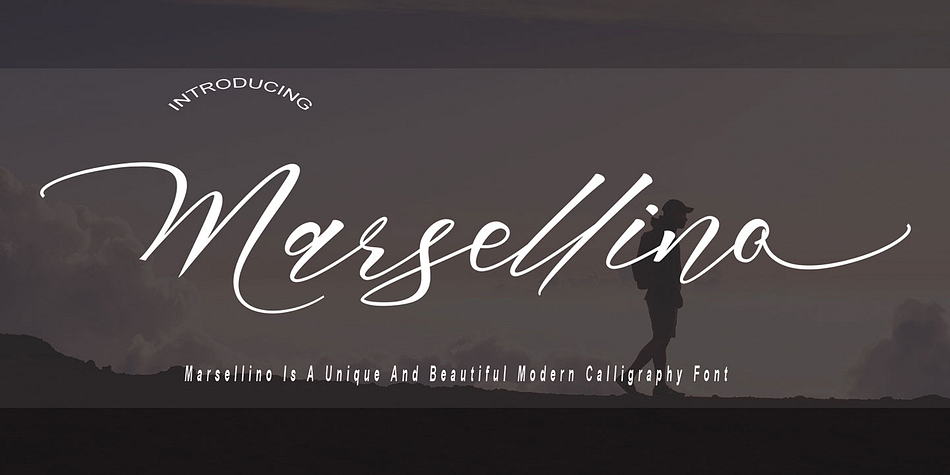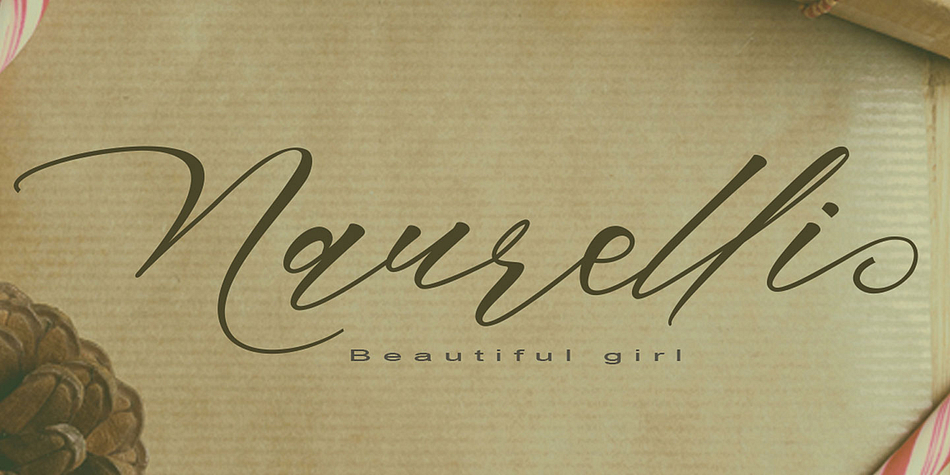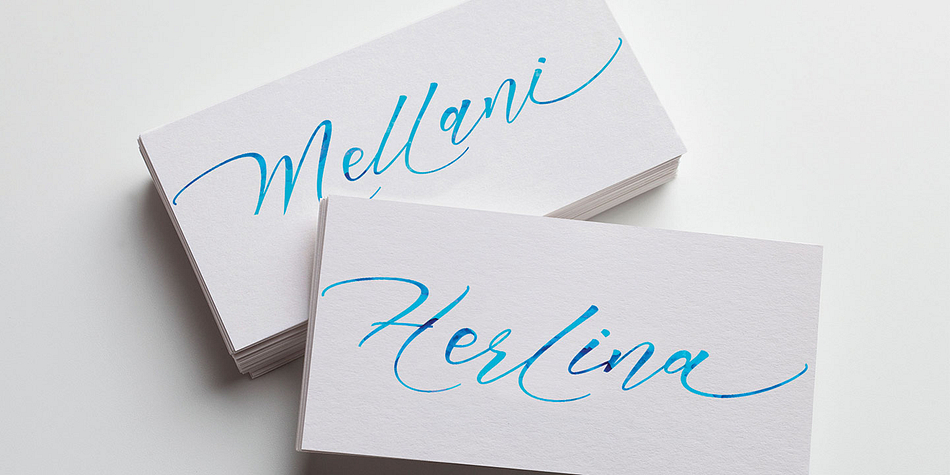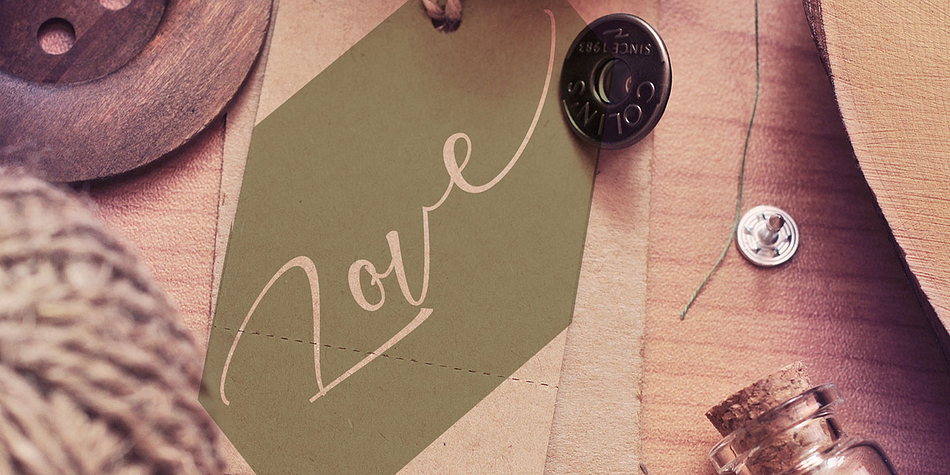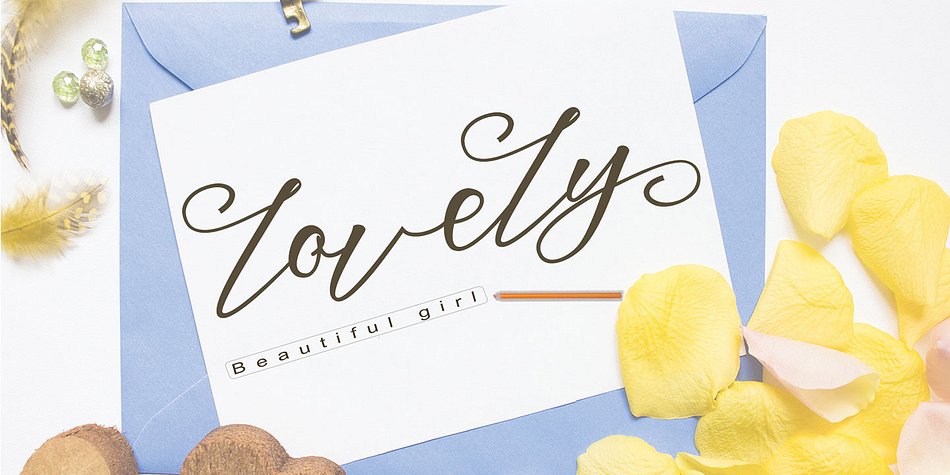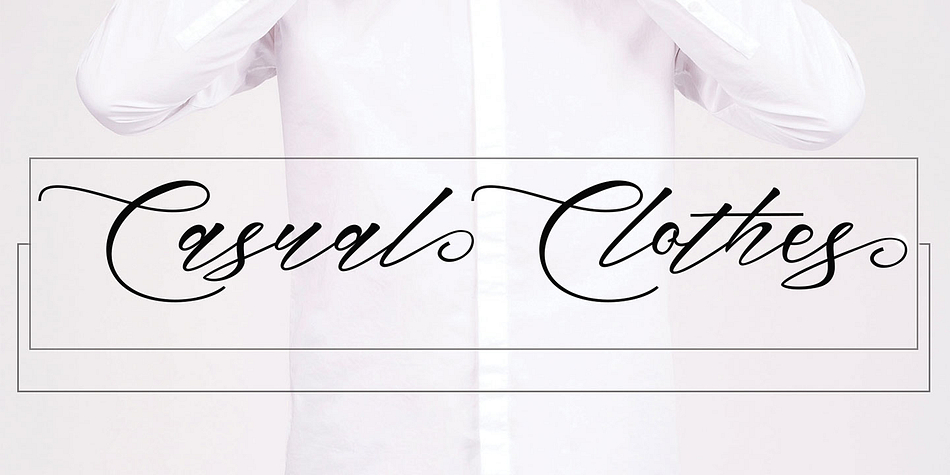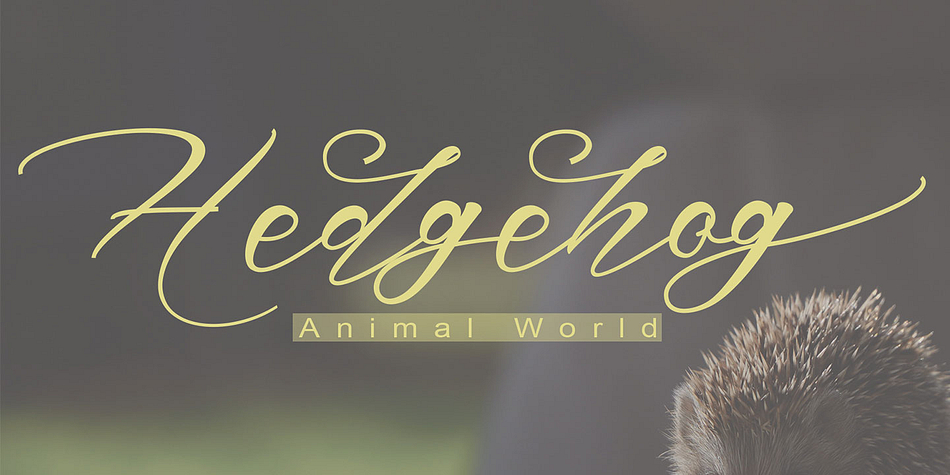
Marsellino
Marsellino is a brush script and modern calligraphy font family published by pollem.Co.
Marsellino is an elegant calligraphy and natural script style.
Marsellino Modern Calligraphy is perfect for wedding designs, shared moments, branding projects, logos, social media posts, advertisements, product packaging, product design, labels, photography, watermarks, invitations, stationery, and any project that requires a handwritten feel.
A font that made the hand by having the character up and down like a dancer. Marsellino has a very unique style of calligraphy, it is very suitable for use in the work of modern design.